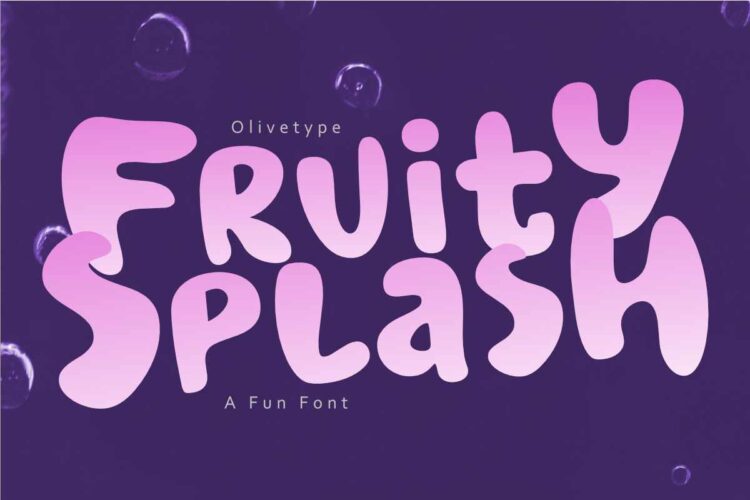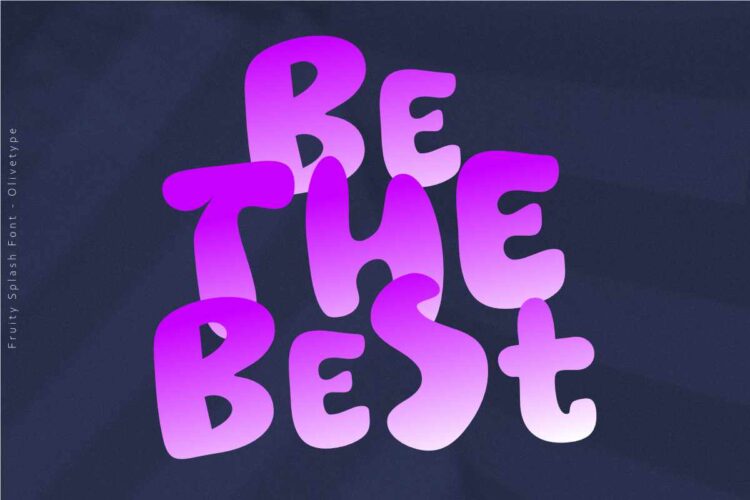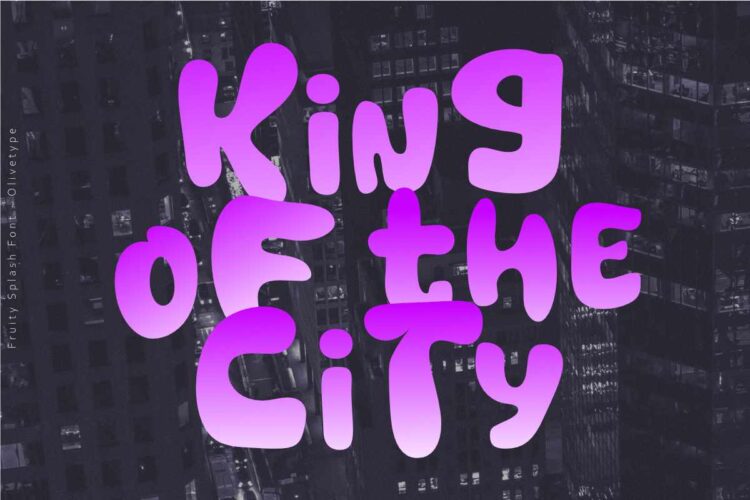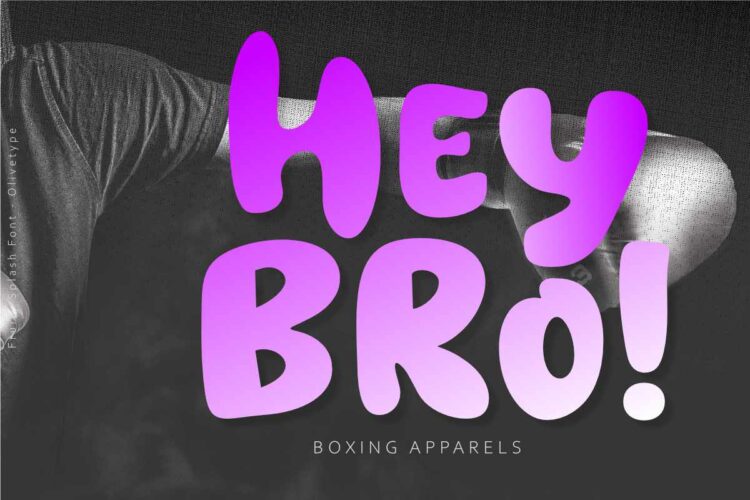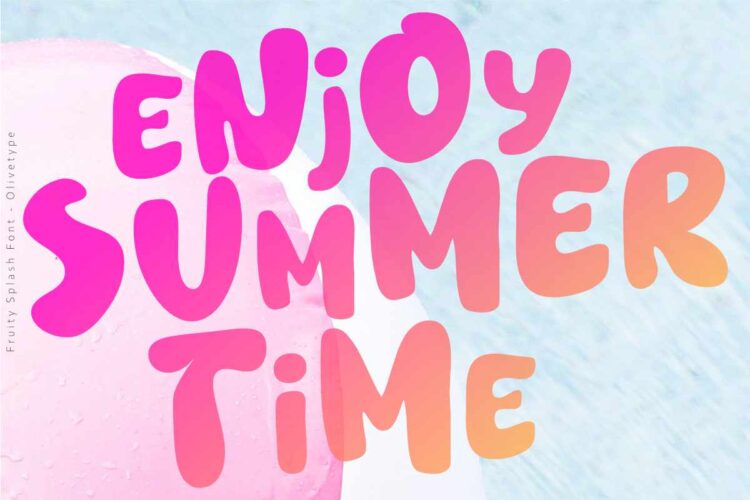
Fruity Splash is the perfect way to add a playful and fun touch to your project! This display font is ideal for creating eye-catching logos, product packaging, and headlines that stand out from the competition. With its unique blend of hand-drawn lettering and vibrant vibes, Fruity Splash will give your design an energizing energy that won’t go unnoticed! Its bouncy curves are sure to make any text pop with life.